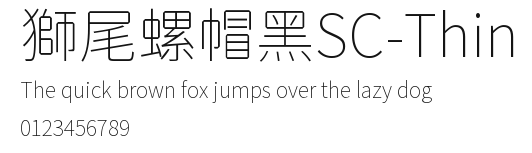
獅尾螺帽黑SC-Thin Preview
About 獅尾螺帽黑SC-Thin.ttf
獅尾螺帽黑SC-Thin.ttf is a modern, elegant sans-serif font designed for ultimate readability and visual harmony. Perfect for branding, headlines, web design, and print materials.